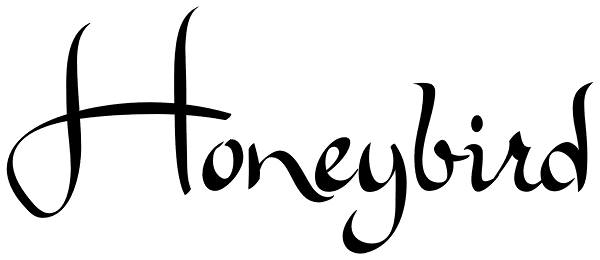
Honeybird
Honeybird originated in a study of calligraphic fonts of the 20th century, took its own direction and developed into a slightly quirky, very readable contemporary script font, typical of Anton Scholtz's free-wheeling style. The exaggerated upper...